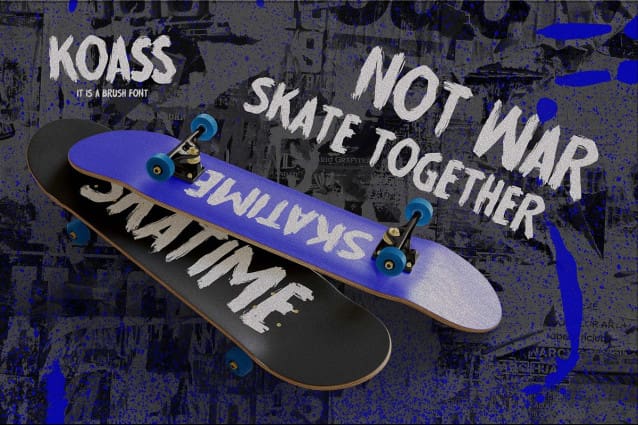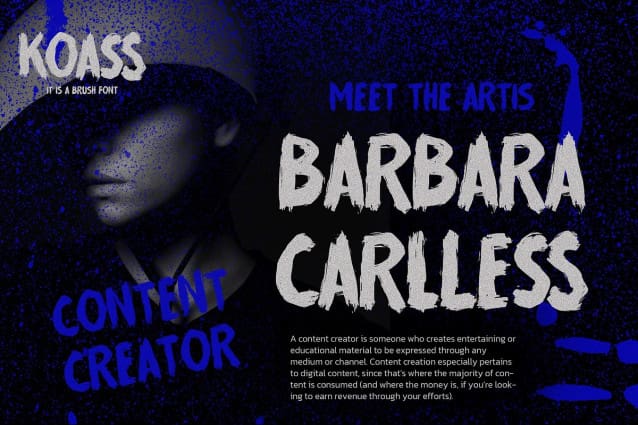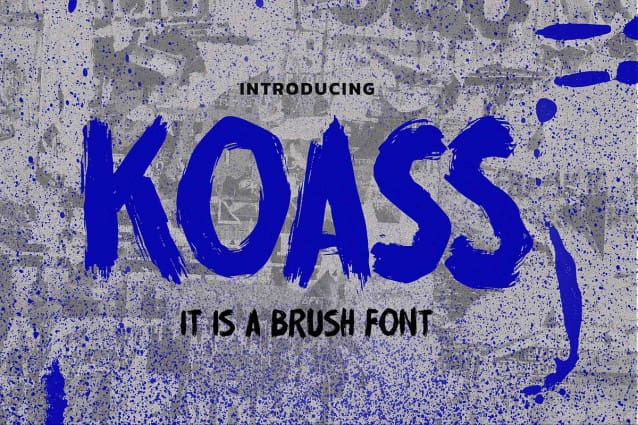
Koass Brush Font
Koass Brush Font is a Brush Font.This is a Textured Natural Style and classy style with a clear style and dramatic movement.
This font Koass Brush is great for your next creative project such as logos, printed quotes, invitations, cards, product packaging, headers, Logotype, Letterhead, Poster, Design this font is great for your creative projects such as watermark on photography, and perfect for logos & branding, invitation,advertisements,product designs, stationery, wedding designs,label ,product packaging, special events or anything that need handwritting taste. That is has charming, authentic and relaxed characteristic more natural look to your text. You can activate 6 Ligatures glyphs OpenType panel.